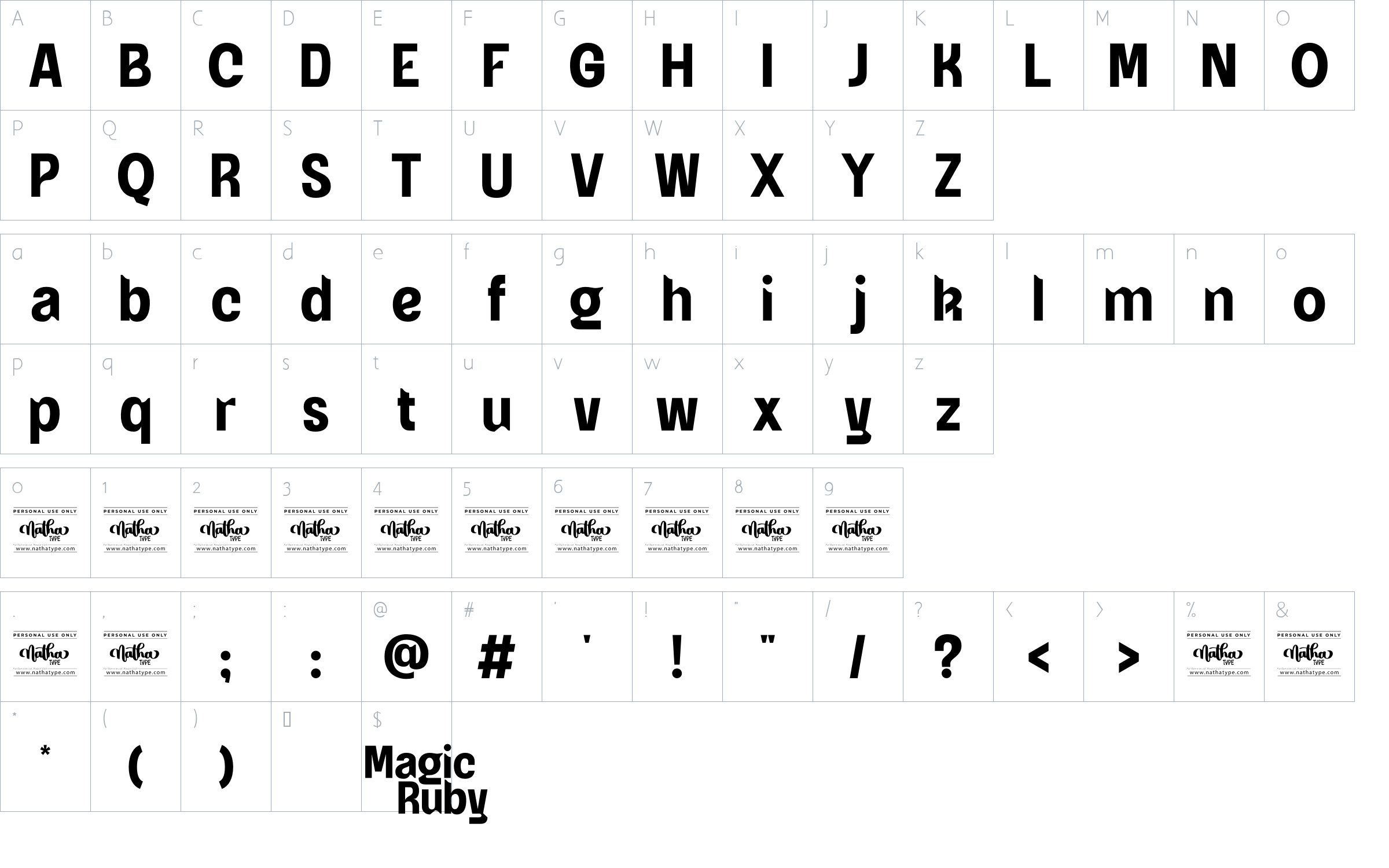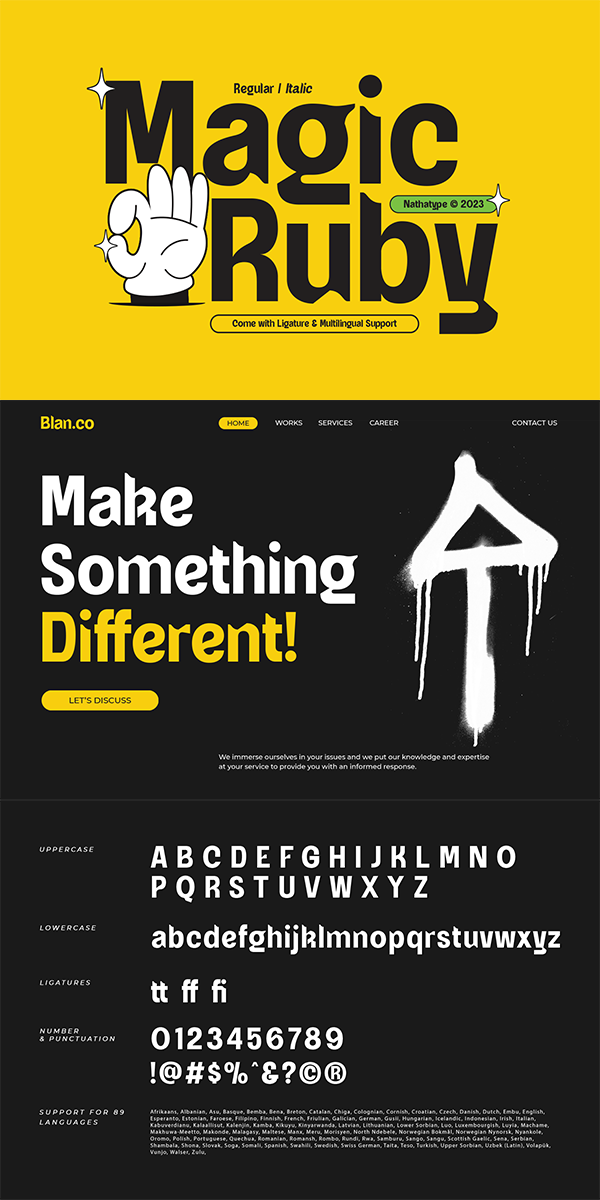
Magic Ruby Font
About Magic Ruby
Magic Ruby is a mesmerizing display font that offers both regular and italic versions, designed with consistent letter proportions and high contrast for exceptional readability. With its captivating charm, this typeface adds a touch of magic to your creative projects. The consistent letter proportions of this font ensure visual harmony and balance throughout the font. Each character is thoughtfully crafted to maintain uniformity, creating a seamless reading experience. This design choice guarantees that every letter complements the others, resulting in a cohesive and visually appealing typographic composition. With high contrast, it prioritizes legibility above all else. The distinct difference between thick and thin strokes enhances the visibility of each character, making them effortlessly readable at various sizes. The high contrast design adds an element of elegance and sophistication to the font, elevating its overall visual impact. Magic Ruby comes in both regular and italic versions, offering versatility and flexibility in your design choices. The regular style exudes stability and clarity, while the italic style adds a touch of emphasis and dynamic flair. This combination allows you to express your ideas with precision and artistic finesse. Enjoy the available features here.